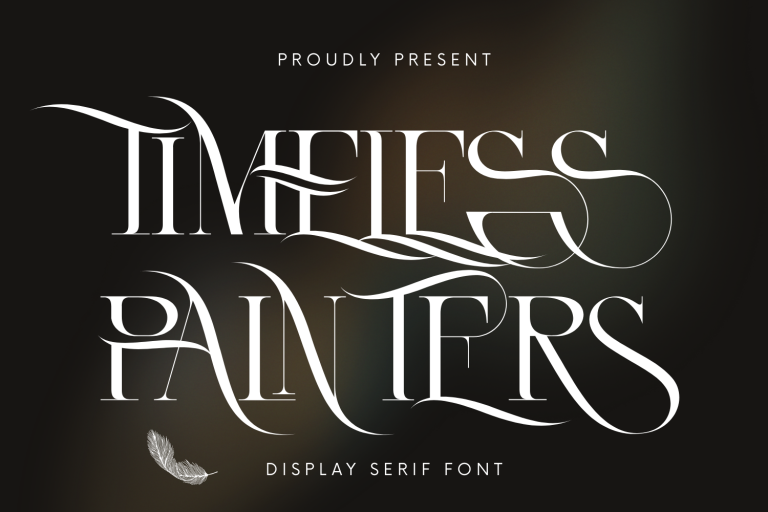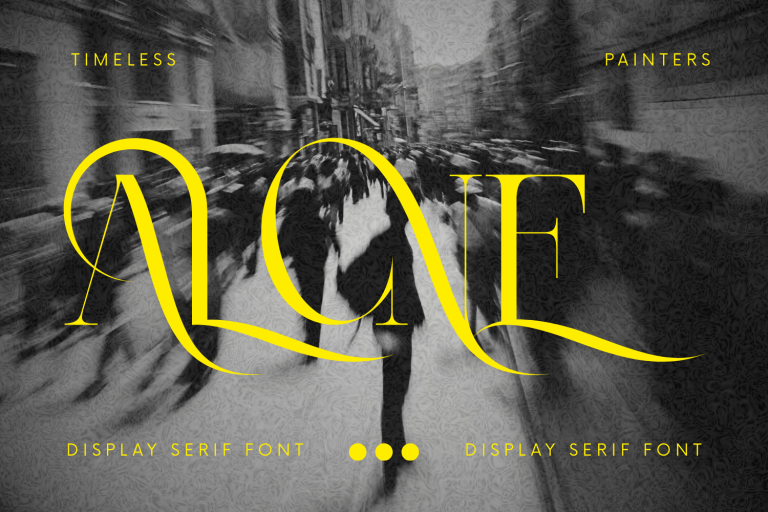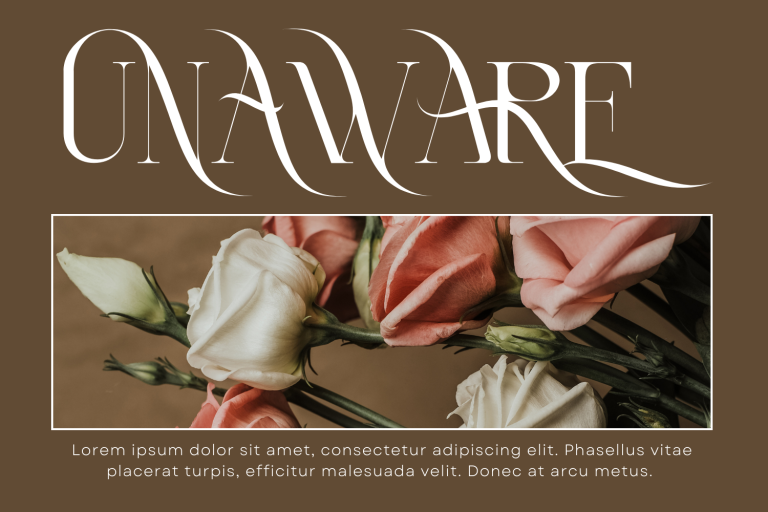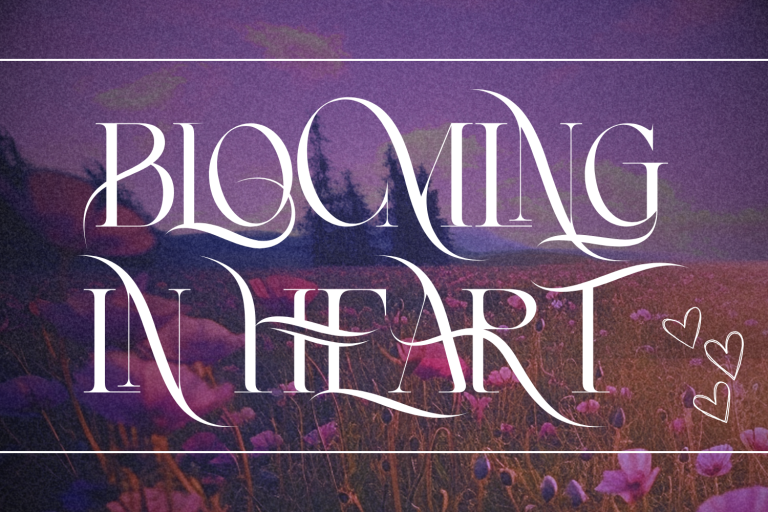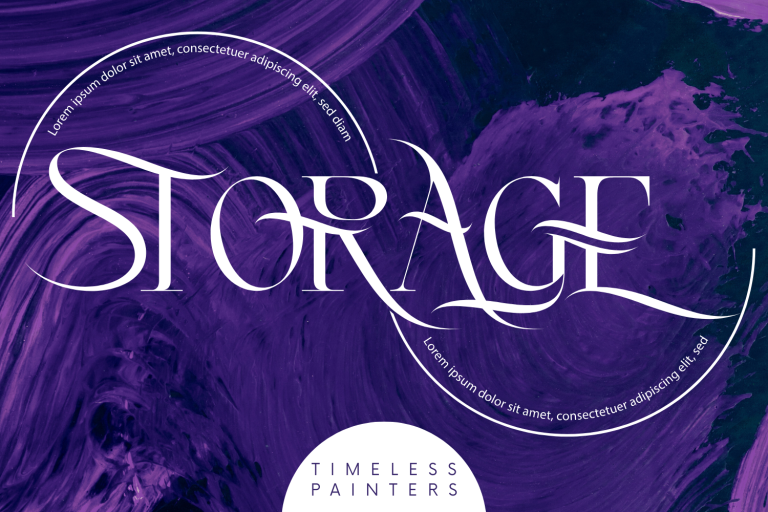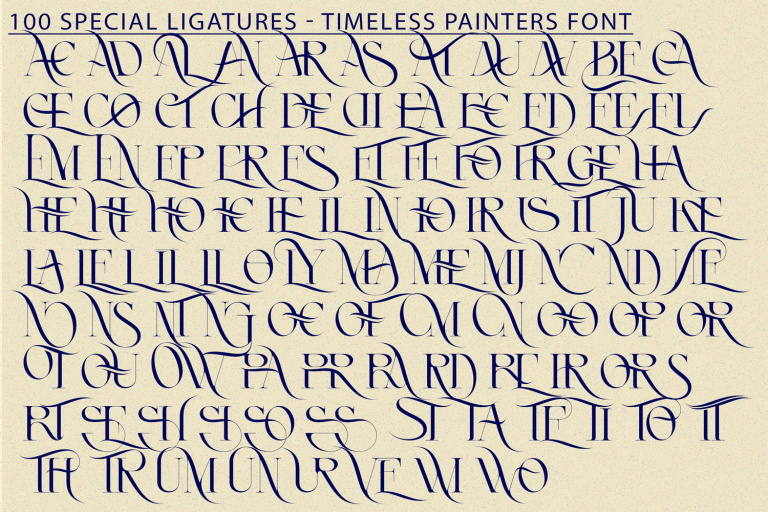
Timeless Painters Elegant Serif Font – is a refined serif display typeface that blends timeless elegance with artistic expression. Featuring high contrast strokes, razor-sharp serifs, and beautifully extended swashes, this font captures the sophistication of classical typography while adding a modern, luxurious twist. Its graceful curves and dramatic letterforms make it perfect for high-end branding, editorial headlines, wedding invitations, luxury packaging, and artistic projects. Designed with attention to detail, Timeless Painters offers over 100 special ligatures for seamless letter connections, giving every word a harmonious and custom-crafted look.
Font Features:
• Uppercase Letters
• 100+ Elegant Ligatures for Flowing Typography
• Multilingual Support with Accented Characters
• High Contrast Strokes with Delicate Serifs
• Artistic Swashes for Dramatic Visual Impact
AC AD AL AN AR AS AT AU AV BE CA CE CH CO CT DE DI EA EC ED EE EL EM EN EP ER ES ET FE FO FR GE HA HE HI HO IE IC IL IN IO IR IS IT JU KE LA LE LI LL LO LY MA ME MI NC ND NE NG NO NT NS OC OF OM ON OO OP OR OT OU OW PA PR RA RD RE RI RO RS RT SE SH SI SO SS ST TA TE TH TI TO TR TT UM UN UR VE WI WO
Timeless Painters Elegant Serif Font